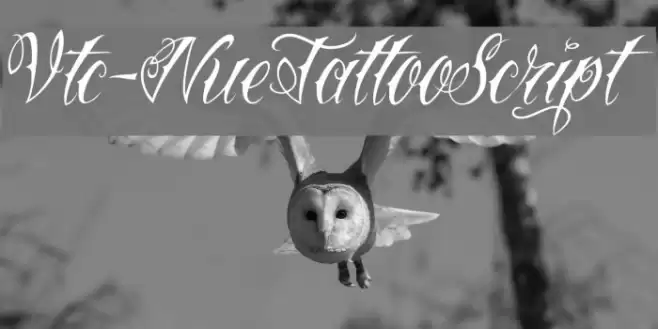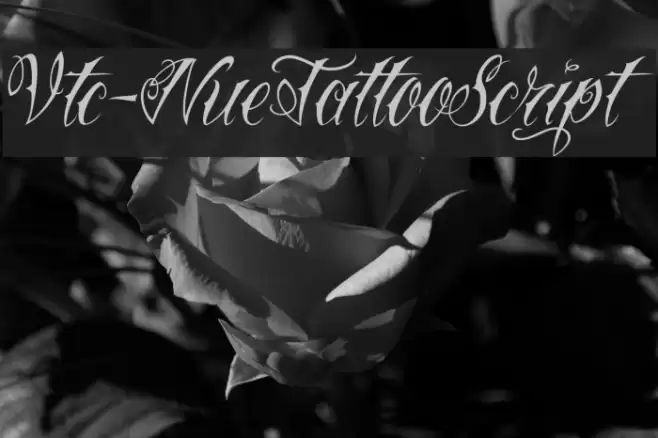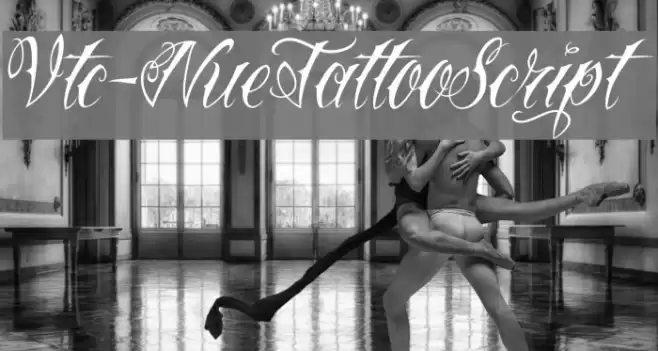
Vtc-NueTattooScript Font
Vtc-NueTattooScript Description
This font is a highly decorative and intricate script style, characterized by its elegant and flowing letterforms. Each character is adorned with elaborate swirls and flourishes, giving it a distinct and ornate appearance. The uppercase letters are particularly embellished, with loops and curves that extend beyond the basic letter shapes. The lowercase letters maintain a similar level of detail, ensuring consistency throughout the typeface. The numerals and special characters are also designed with the same attention to detail, making this font suitable for artistic and creative projects. Its overall aesthetic is reminiscent of traditional calligraphy, yet it maintains a modern twist with its bold strokes and dynamic lines.
An ornate and decorative script font with elaborate swirls and flourishes from Uncategorized fonts.
- Character Spacing: Tight